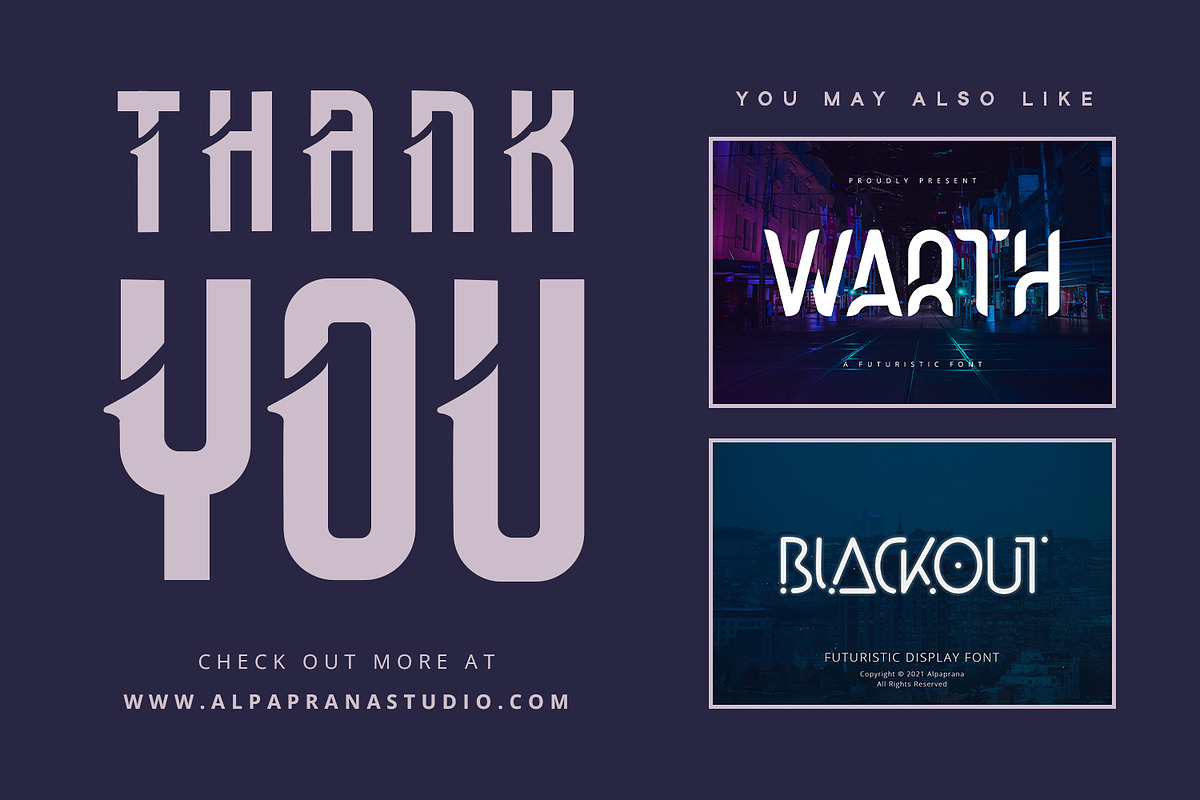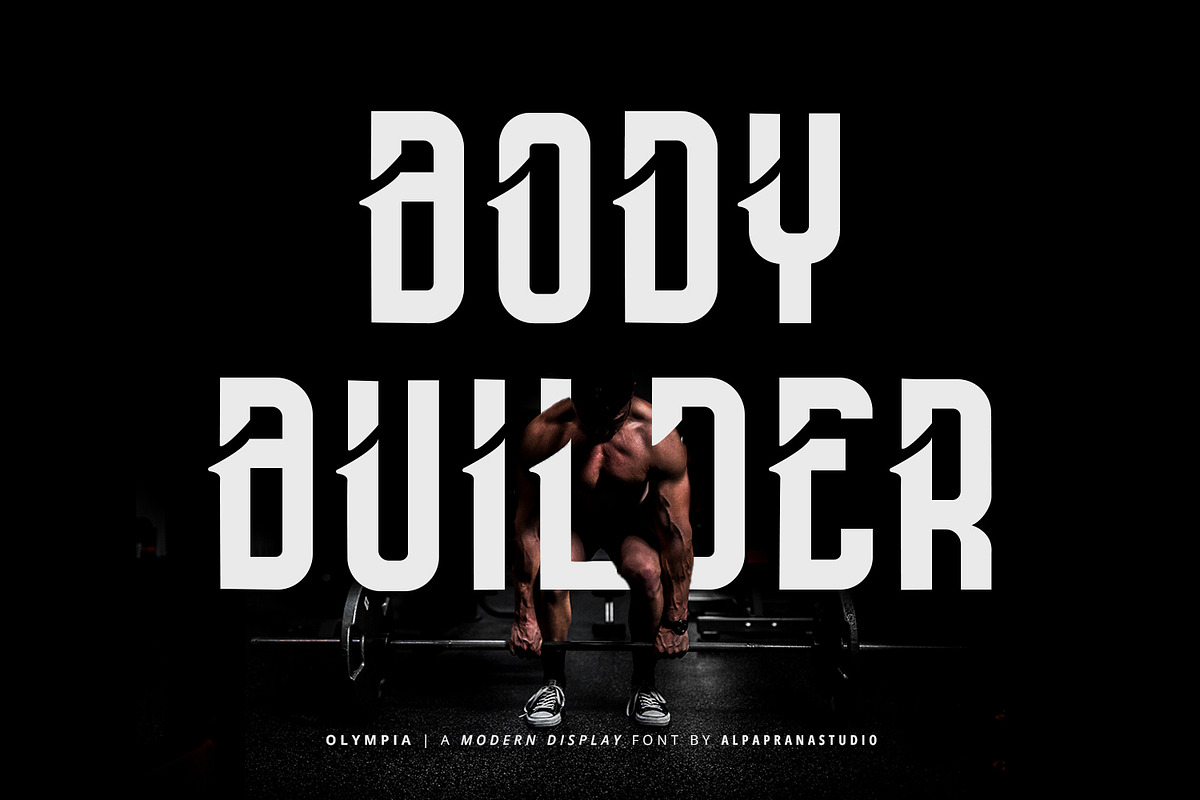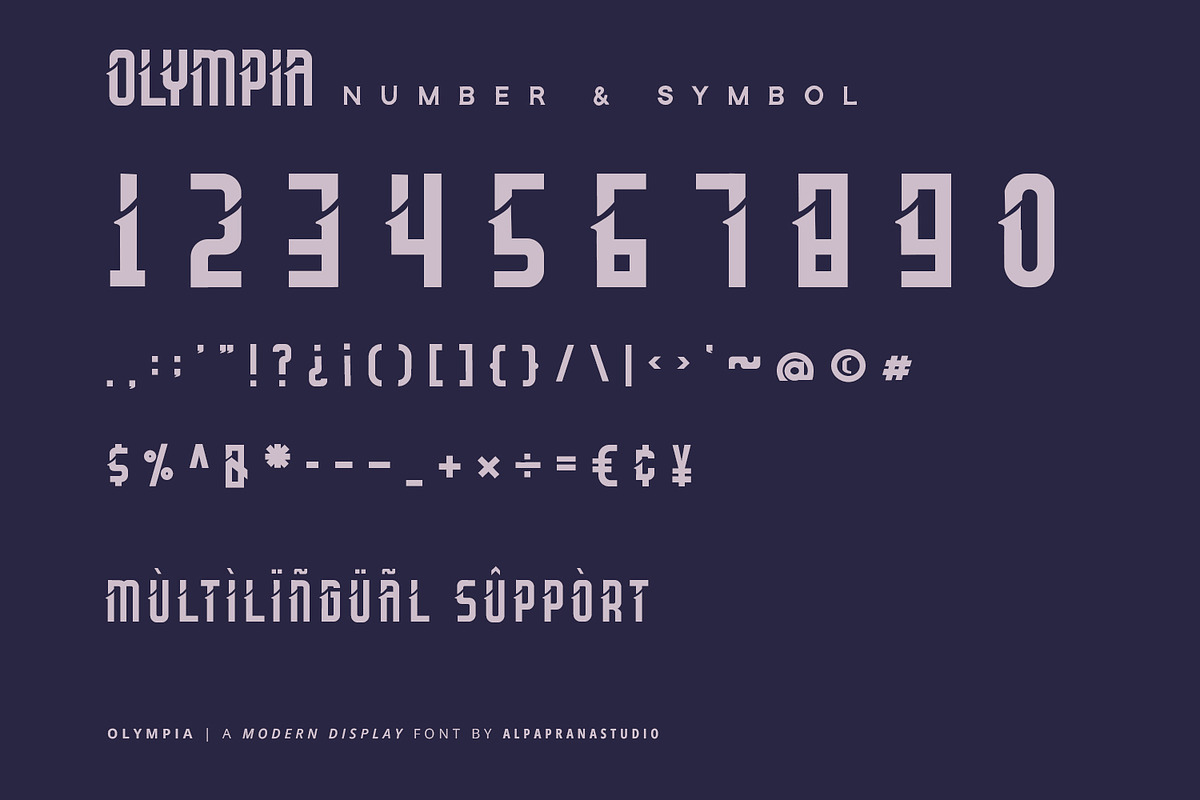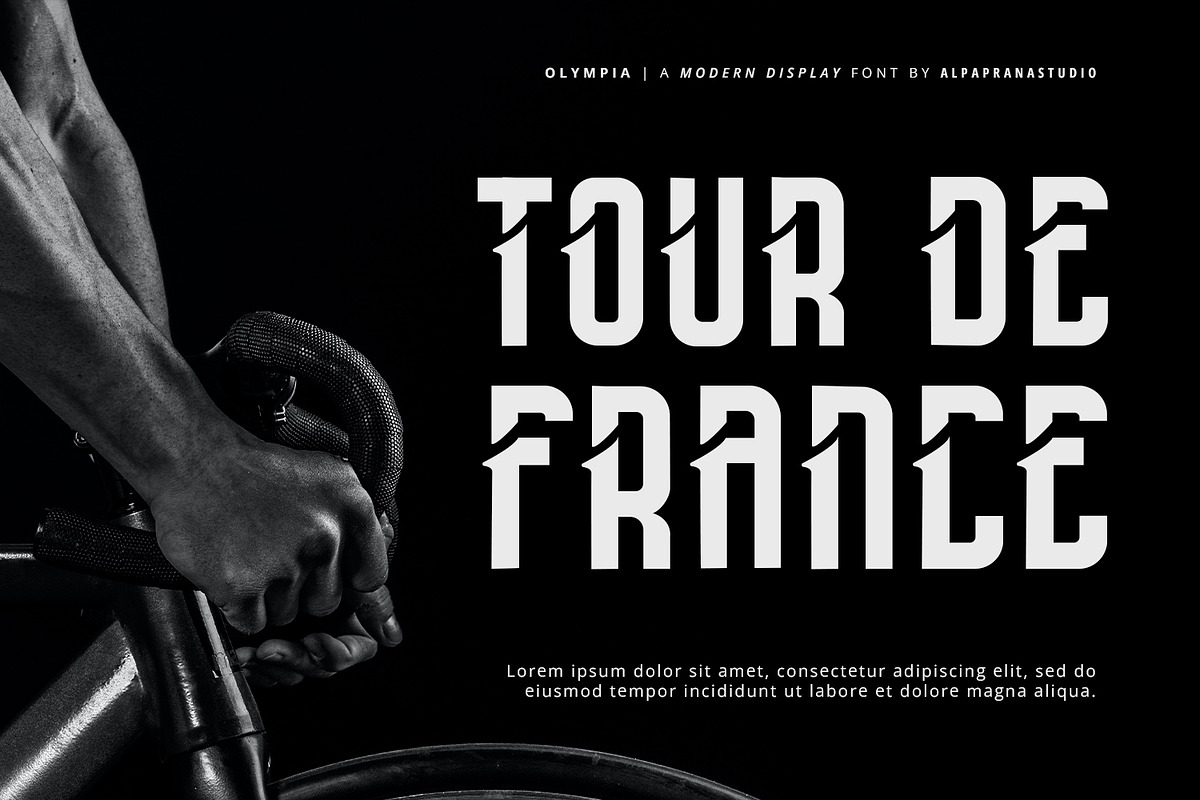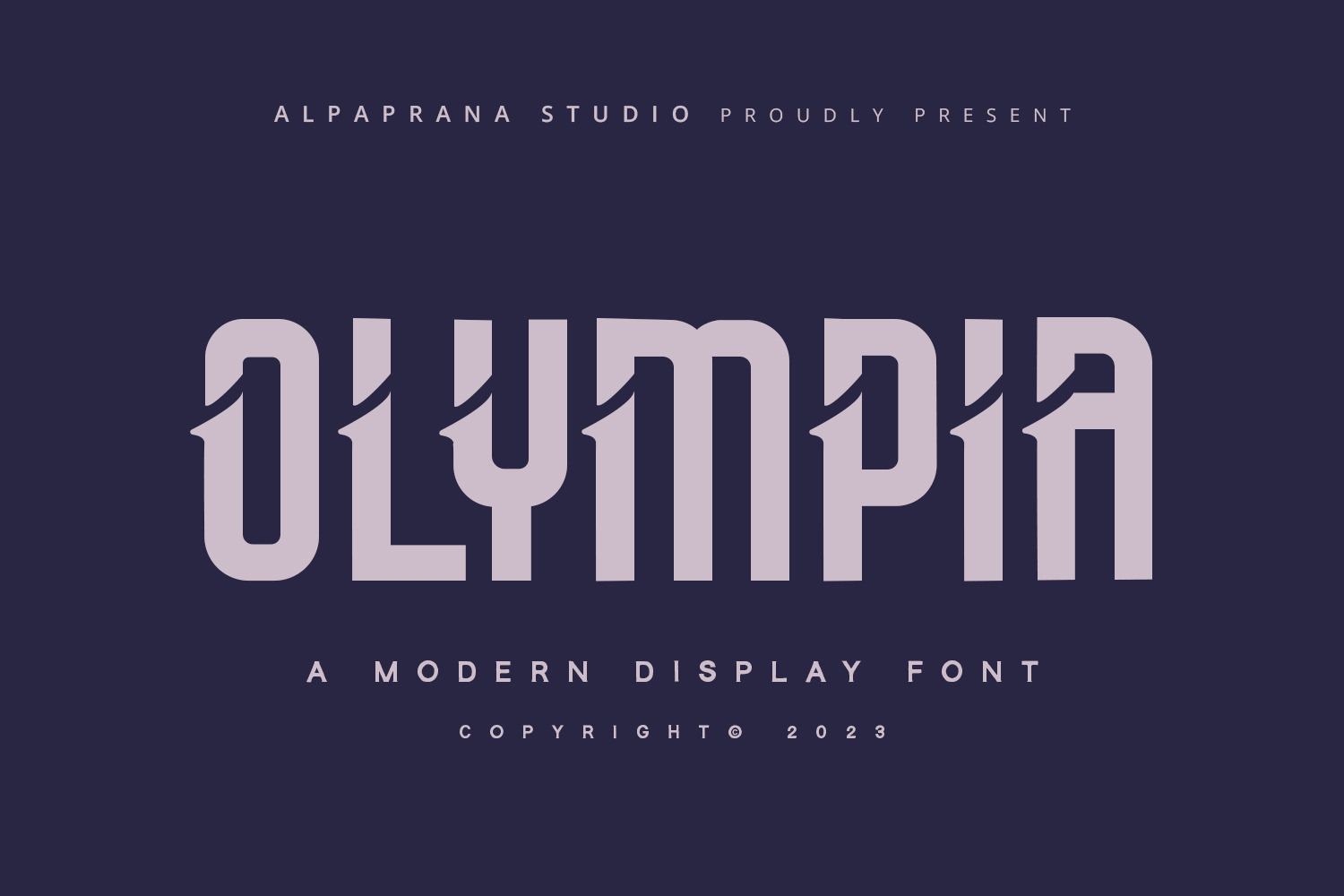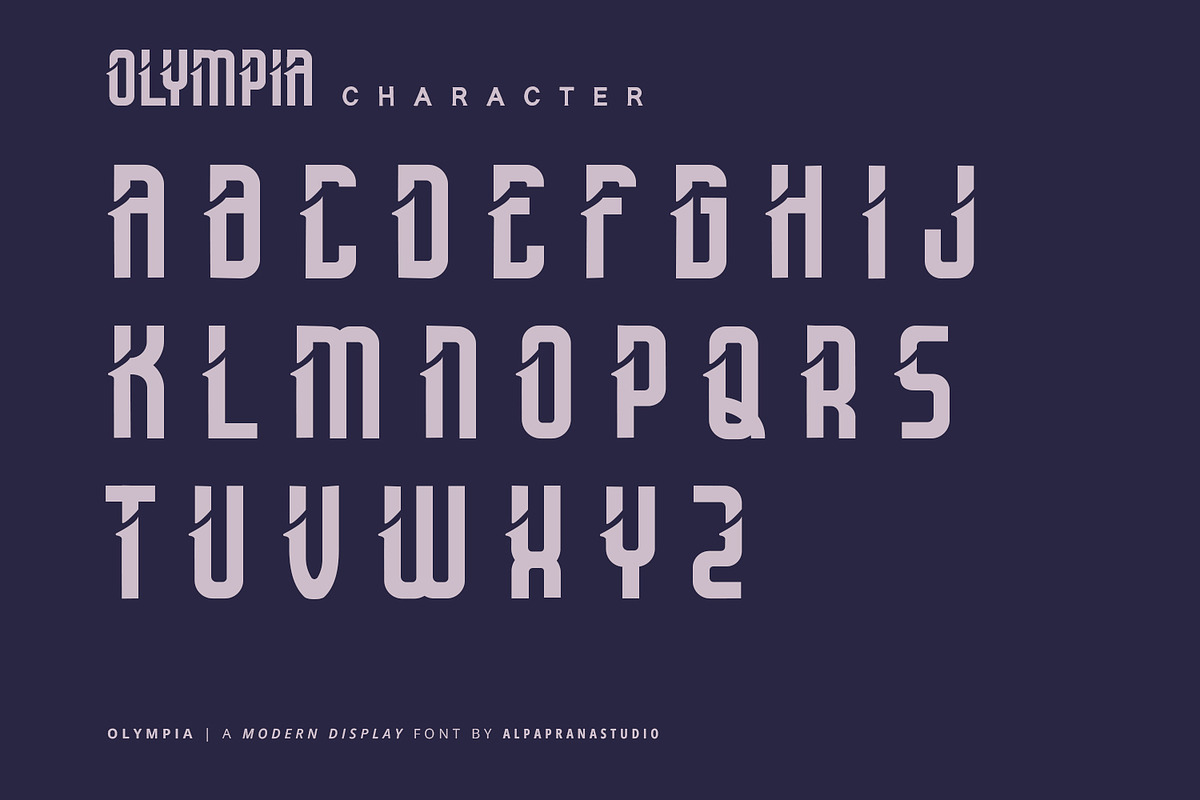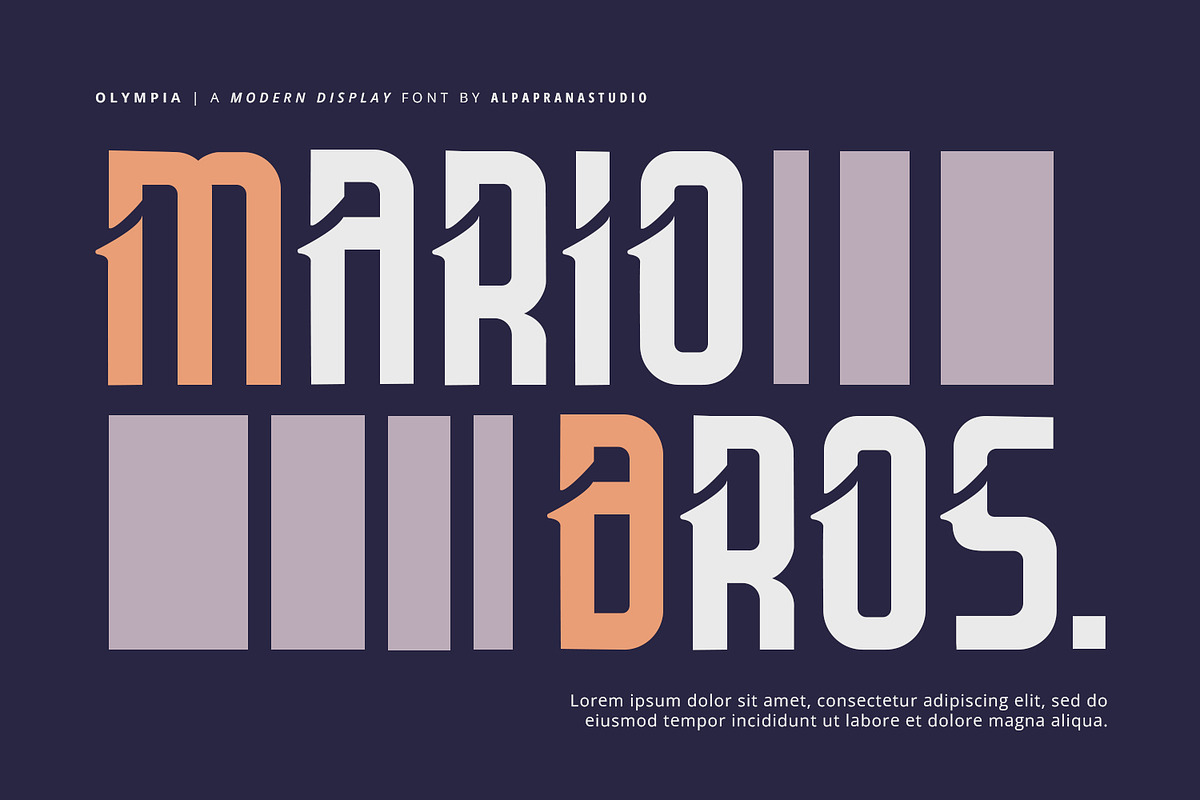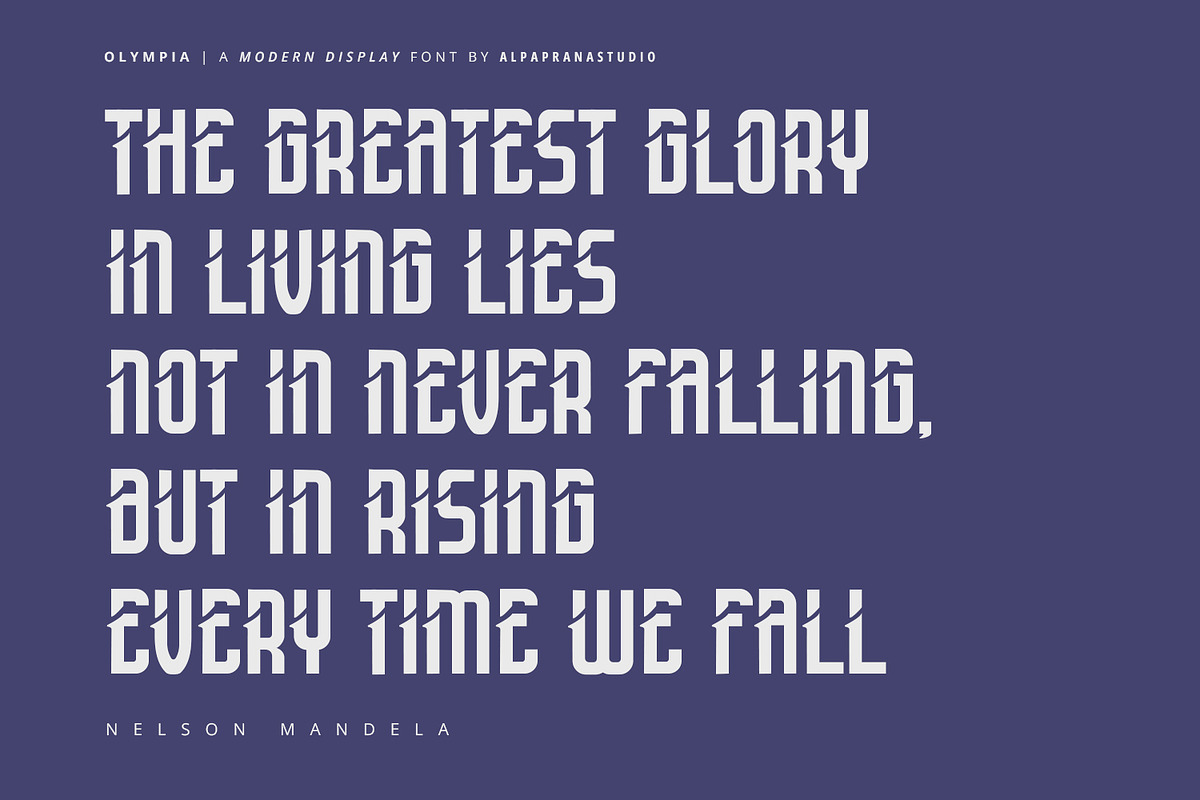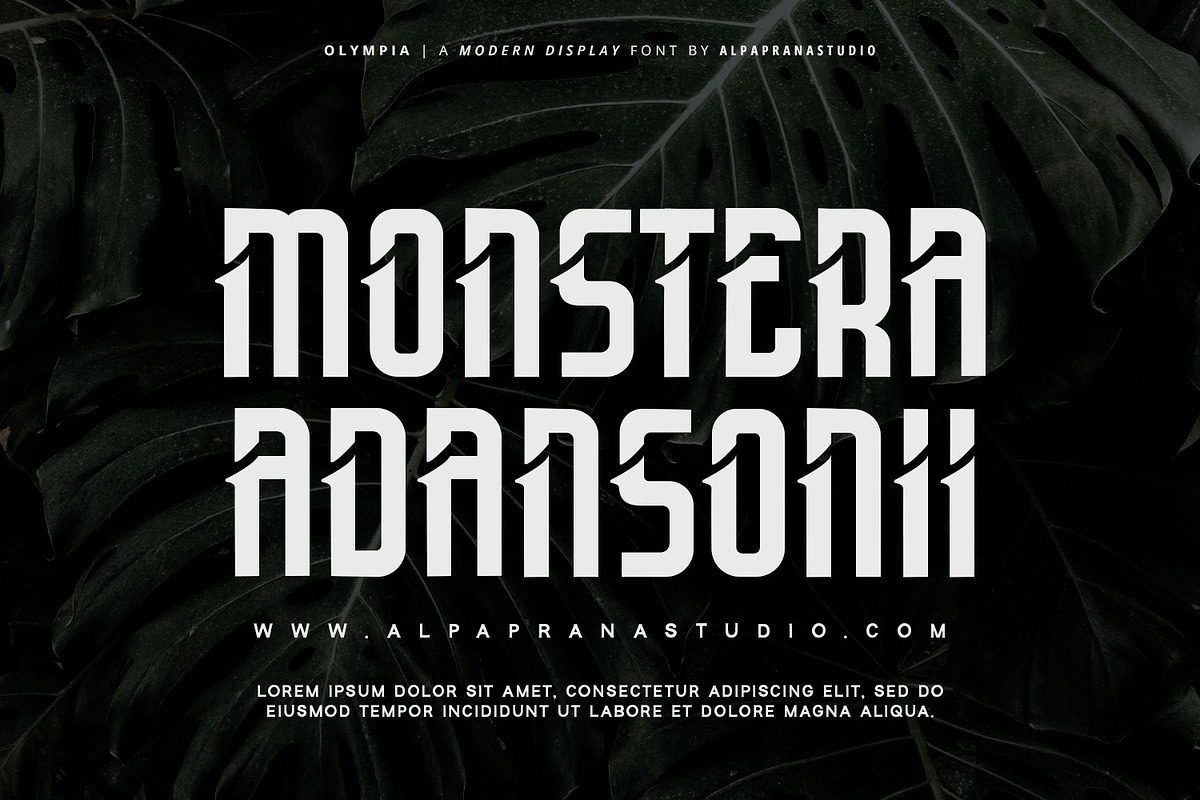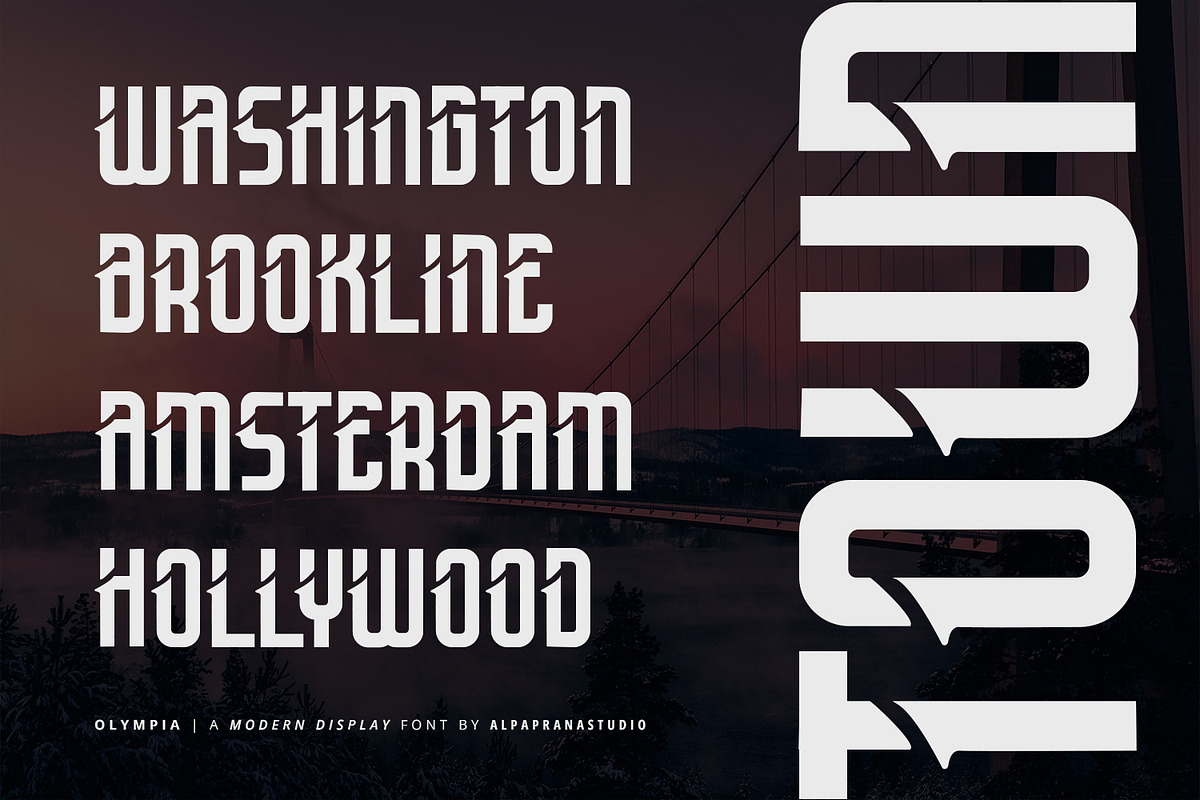
Olympia - Modern Display Font
Olympia is a modern display font with modern feels. It will be perfectly used for Branding, Logo Design, Lettering, Logotype, Clothing, Poster, magazine, packaging, posters, shopping bags, t-shirts, book covers, photography, special events and other design project.